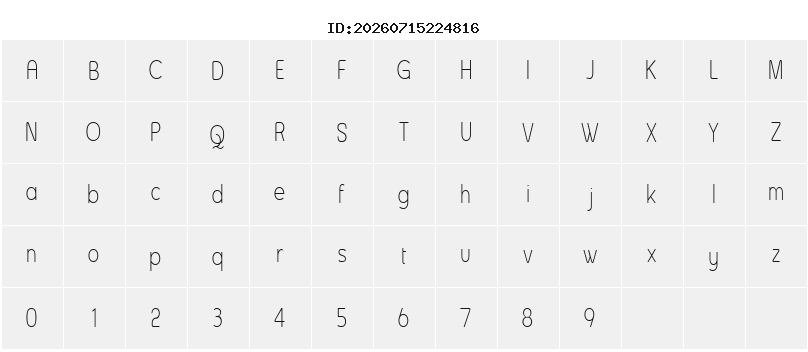
• Font Name: Asenine Thin
• Full Font Name: Asenine Thin
About Asenine Thin.ttf
Asenine Thin.ttf is a modern, elegant sans-serif font designed for ultimate readability and visual harmony. Perfect for branding, headlines, web design, and print materials.